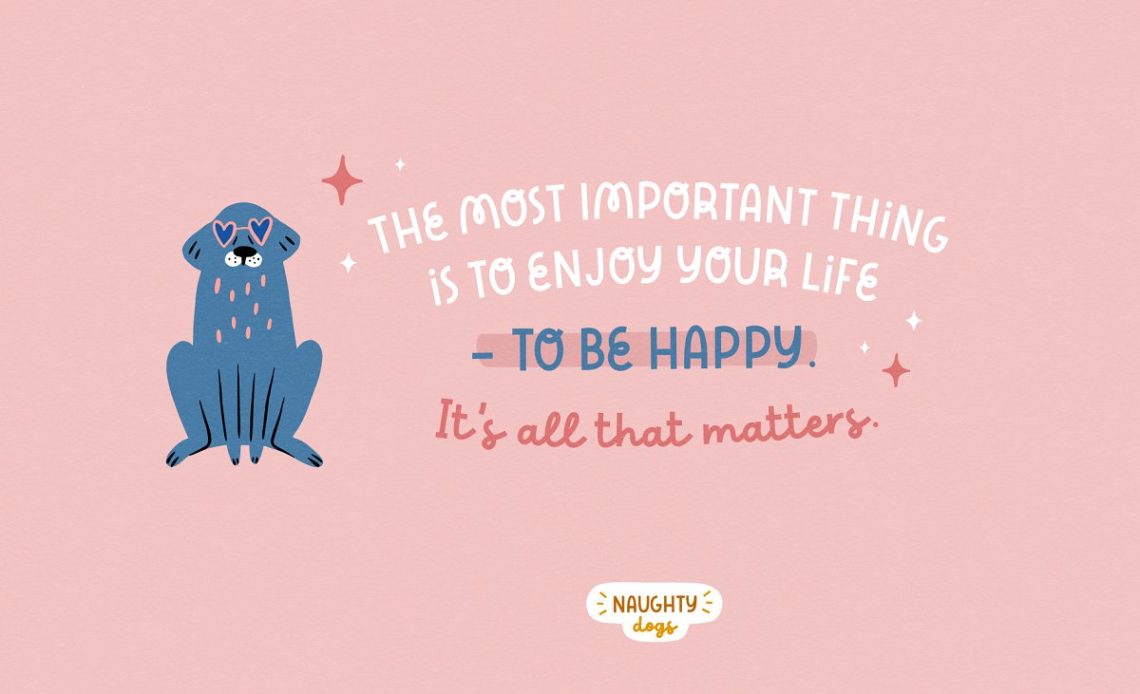
Looking for the best font for a kids party that will bring fun and happiness to your projects? Look no further than Naughty dogs, the perfect font duo for any occasion! Created by Angelina Kovel, Naughty dogs is a script font family that includes both Naughtydogs-Regular.otf and Naughtydogs-Script.otf.
But that's not all - Naughty dogs also comes with 65 graphic elements in Ai, EPS, and PNG formats with transparent backgrounds. With so many options to choose from, Naughty dogs is the ultimate choice for books, greeting cards, posters, clothing, picture books, and anything else that requires a playful and joyful look.
Whether you're planning a kids party or just looking to add a touch of whimsy to your designs, Naughty dogs is the perfect choice. Its unique style and eye-catching design will make your projects stand out from the crowd and leave a lasting impression.